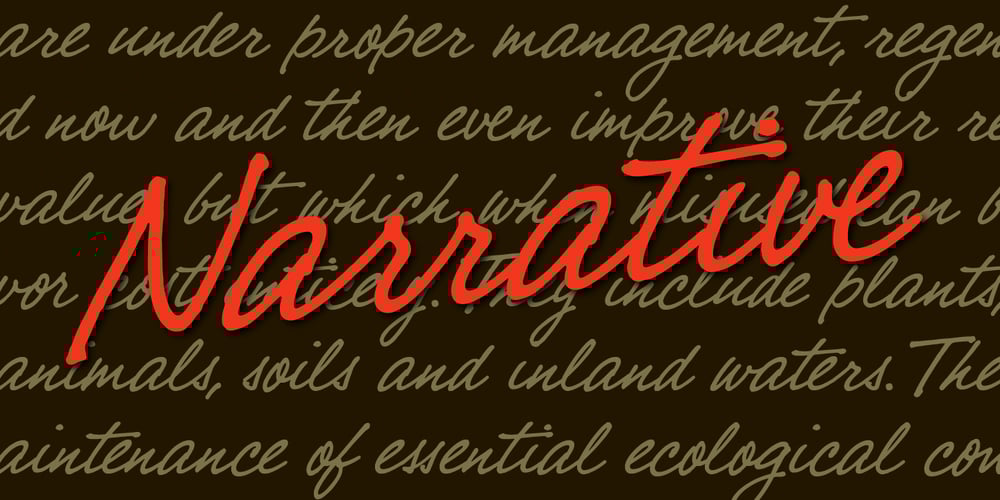
Narrative BF
Narrative BF font
Narrative BF Font Family was designed by John Bomparte and published by Bomparte’s Fonts. Narrative BF contains 1 styles and family package options. A cool handwritten script with a warm and friendly voice.